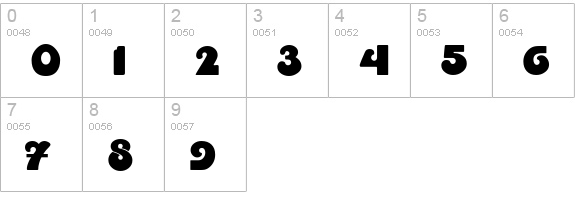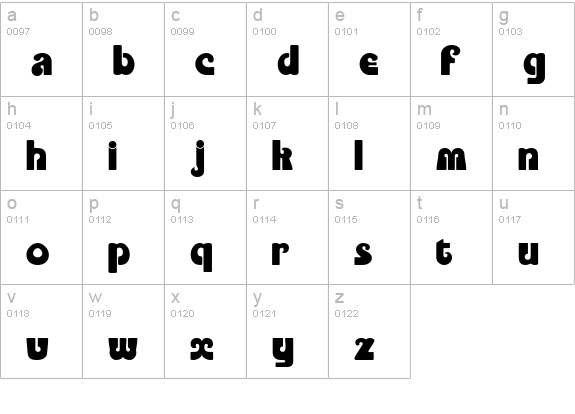
PookyDisplay Font Details
PookyDisplay is a whimsical and playful font that exudes charm and creativity. With its rounded edges and quirky style, this font is perfect for adding a touch of fun to your projects. Whether you're designing a children's book, crafting a greeting card, or creating social media graphics, PookyDisplay will bring a sense of joy and whimsy to your work. The best part? PookyDisplay is completely free to download at FontsMarket.com! This means you can easily access this delightful font and use it in your projects without any cost. So go ahead and let your creativity shine with PookyDisplay, a free font that will bring a smile to your designs.